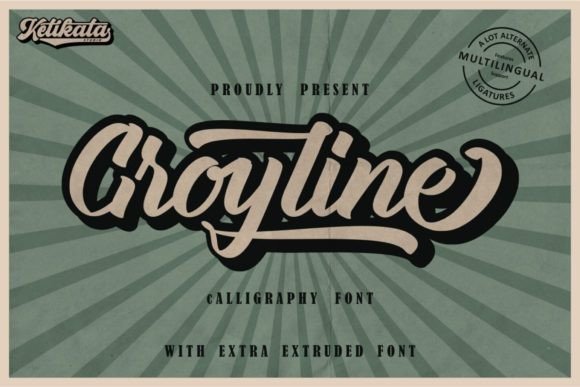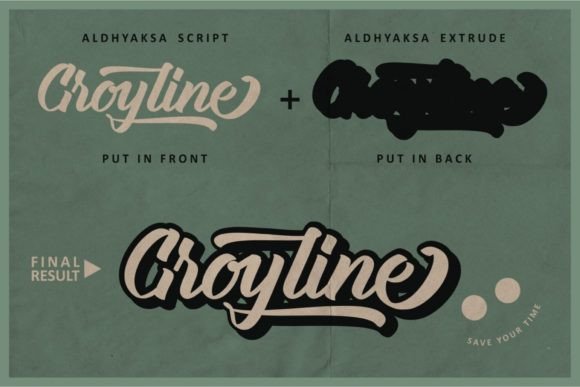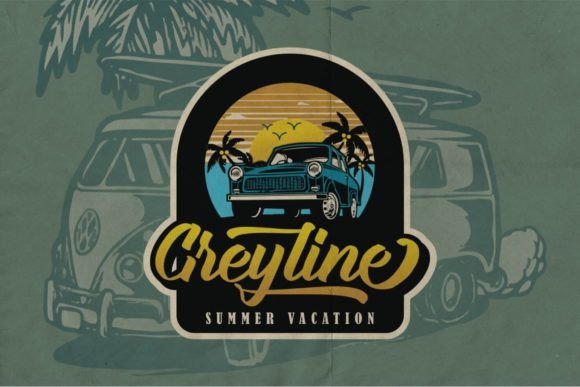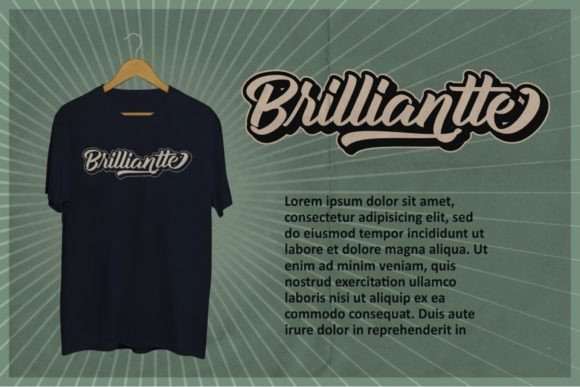
Groyline Font: Bold Script & Calligraphy Font for Unique Logo Design
About the Groyline Font
From logos to headlines, the Groyline Font is the perfect choice for making a lasting impression. Groyline is a strong and bold script font. carefully crafted with hand lettering. that contains many stylistic alternatives and swashes that will help you to create your own customized design.
Groyline excels in headline applications, short impactful statements, and branding elements where its bold character makes a statement. It’s ideal for logos, posters, and packaging designs requiring a touch of elegant drama. However, its highly decorative nature makes it unsuitable for body text or UI elements where readability is paramount; extended use would severely impair legibility.
Consider pairing Groyline with a clean sans-serif like Helvetica Neue for a modern contrast, or a classic serif like Garamond for a more traditional feel. For a playful approach, a geometric sans-serif such as Futura would create visual interest. These pairings provide a balance to Groyline’s strong script form, ensuring design cohesion and visual hierarchy.
Groyline projects a confident, sophisticated personality with a touch of vintage flair. Its bold strokes and swashes convey luxury and a high-end feel, making it perfect for brands aiming for a premium image.
Groyline Font Usage Examples
Groyline Font Example